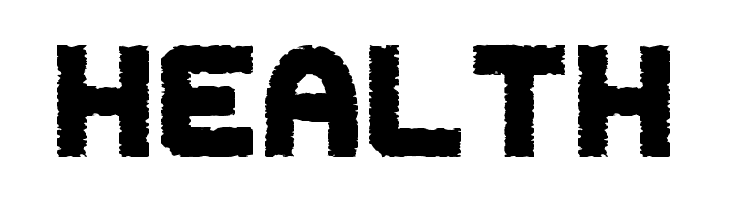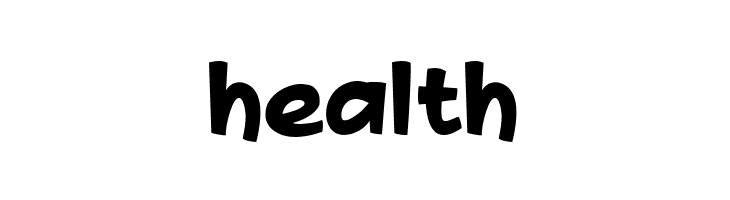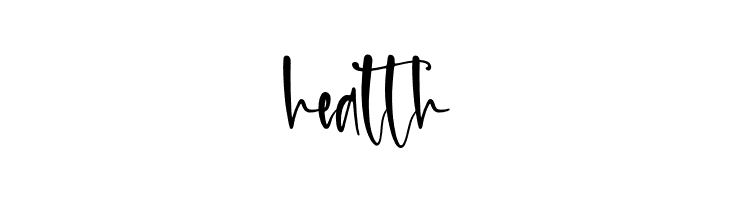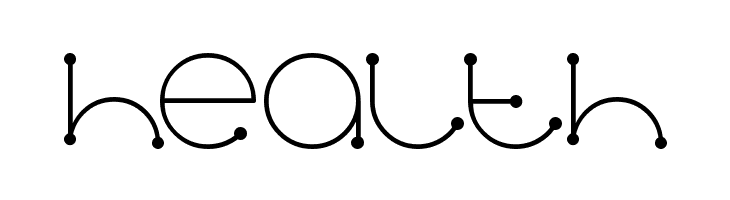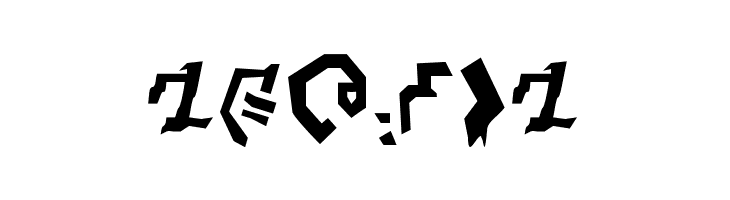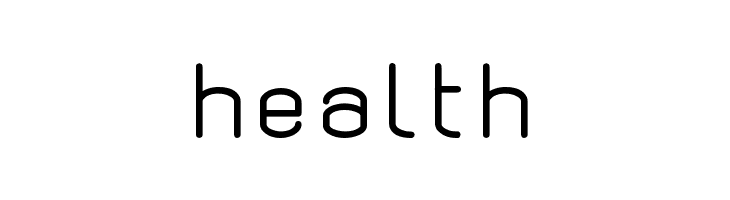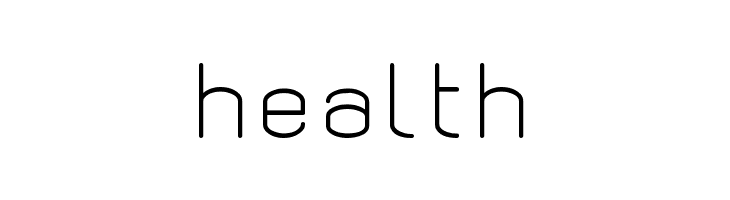
• Virtucorp Bold
A bold, modern font with thick, uniform strokes for high impact.
• Virtucorp Bold Italic
Bold, italicized font with strong, angular lines and a dynamic slant.
• Virtucorp Italic
A bold, italic font with strong, angular lines and a modern aesthetic.
• Vixura Regular
( Sephraxian Support font )
A modern, clean sans-serif font with balanced spacing and consistent stroke width.
• Voluptate_demo
An elegant, flowing script font with intricate, interconnected letterforms.
• Voynich Hollow
A mysterious, hollow font with an ancient, coded appearance.
• Voyntea Personal Use
An elegant script font with intricate swirls and high contrast strokes.
• Vtks Black
A decorative and ornate font with gothic influences and intricate flourishes.
• Vtks Fresh Mint
A dynamic and artistic font with swirling, fluid strokes and a calligraphic style.
• Vtks Grungy
A grungy, distressed font with a splattered ink effect and irregular strokes.
• vtks ink
A bold, distressed font with a grunge texture, perfect for edgy designs.
• VTKS Rafia
A bold, dramatic Blackletter-style font with intricate detailing.
• VTKS ROCK GARAGE BAND
A bold, grunge-inspired decorative font with intricate details and a rock aesthetic.
• VTKS URBAN TIME
A bold, distressed font with a modern, urban aesthetic.
• VTKS URBAN TIME bold
A bold, distressed font with a modern, urban aesthetic.
• vtks urban time super 3d